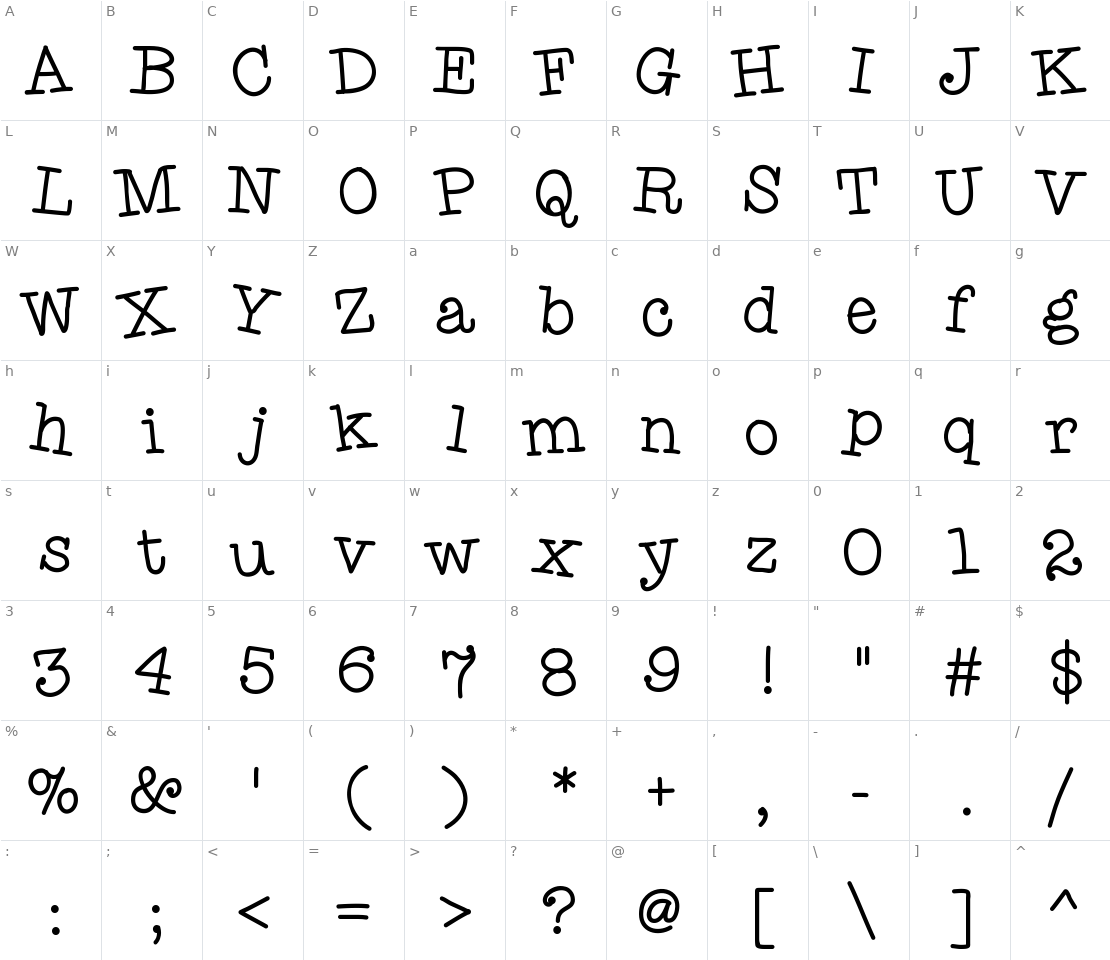
Hello TypeHype
Hello TypeHype is a quirky typewriter face from Jen Jones that splits the difference between mechanical keystrokes and loose handwriting. The letterforms have that classic monospaced rhythm but with enough wobble and personality to feel human, not clinical. It works well for headlines, branding, and editorial layouts where you want vintage typewriter charm with a playful, informal streak.